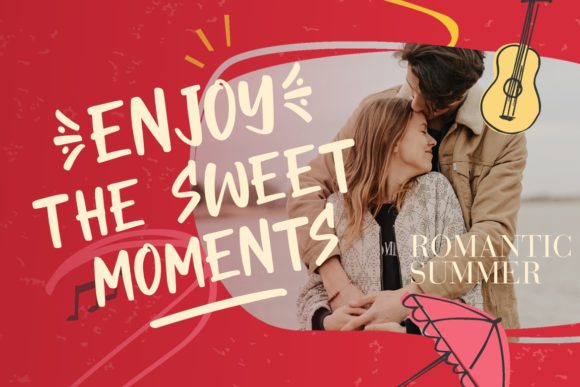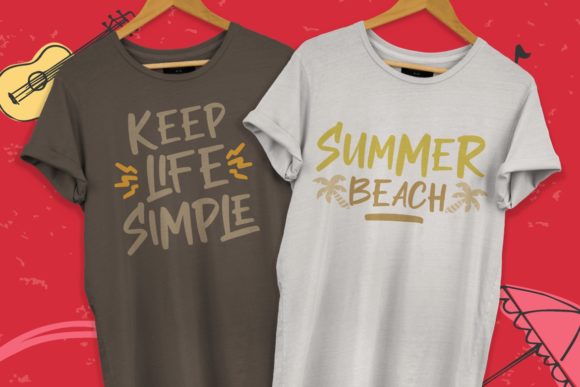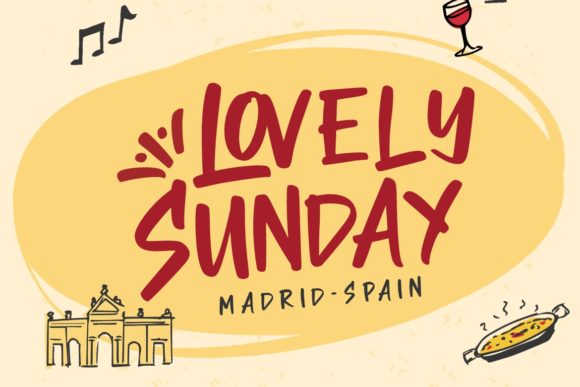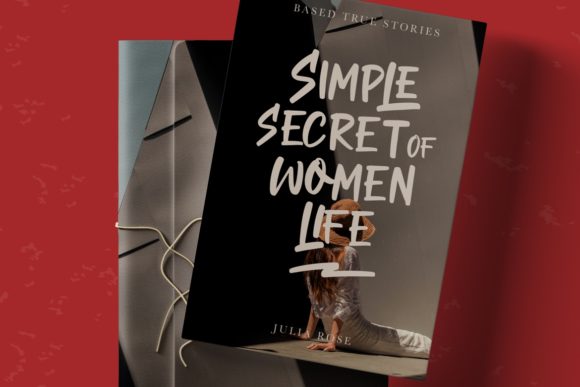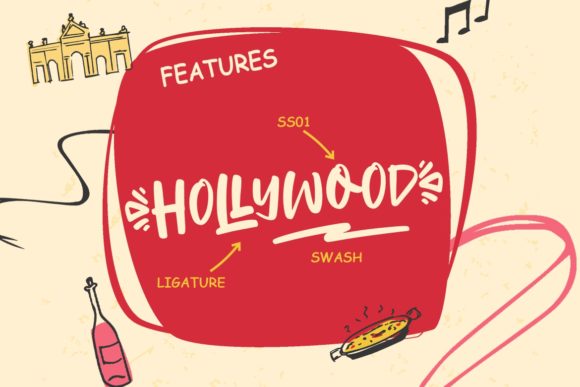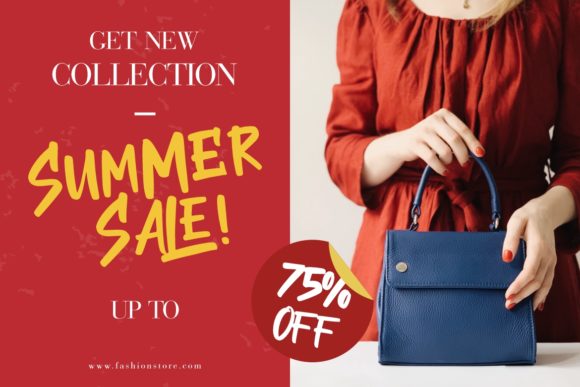
Unlock the Joy of Barcelona Font
Enter the Barcelona Font – a charming and playful display font that adds a touch of whimsy to any design. With its PUA encoding, accessing the font’s many glyphs and swashes is a breeze, allowing you to get creative and experiment with different styles. Whether you’re designing a logo, poster, or social media graphics, the Barcelona Font is sure to bring a smile to your audience’s faces.
Key Features of Barcelona Font
- Unique Characteristics: Barcelona Font features a unique, modern design with a mix of geometric and organic shapes, making it perfect for creative and innovative projects.
- Font Family: The font family includes 6 styles: Regular, Italic, Bold, Bold Italic, Condensed, and Condensed Italic, providing flexibility and versatility for various design applications.
Barcelona Font Review
As a designer, I’ve had the chance to work with Barcelona Font, and I must say it’s a decent addition to any design project. ✨
- Unique style: Barcelona Font has a distinct, elegant look that can add a touch of sophistication to any design.
- Good legibility: The font is clear and easy to read, making it perfect for body text or headlines.
- ⚠️ Limited character set: Barcelona Font doesn’t have a complete set of characters, which can be a problem if you need to typeset text in a specific language.
- ⚠️ Limited weight options: The font only comes in a few weights, which can limit its versatility.
Overall, I’d say Barcelona Font is a solid choice for designs that need a bit of flair. It’s not perfect, but it’s a good option for projects where you want to add a touch of elegance. Just be aware of its limitations and consider whether it’s the right fit for your needs.
The Barcelona font is ideal for:
- Business cards
- Wedding invitations
Tip: Use the Barcelona font to add a touch of elegance and sophistication to your designs.
Alternatives to Barcelona Font
Lato is a modern sans-serif font designed for digital use. It is a versatile font suitable for various designs, from web pages to logos. Lato has a clean and minimalist design, making it an excellent choice for modern and tech-related projects. In comparison to Barcelona Font, Lato has a more geometric and futuristic feel, whereas Barcelona Font has a more traditional and elegant look.
Montserrat is a geometric sans-serif font inspired by the urban landscape of Barcelona. It is a highly legible font with a strong grid structure, making it perfect for digital and print designs. Montserrat has a similar feel to Barcelona Font, but with a more modern and edgy twist. It is ideal for projects that require a strong, urban feel.